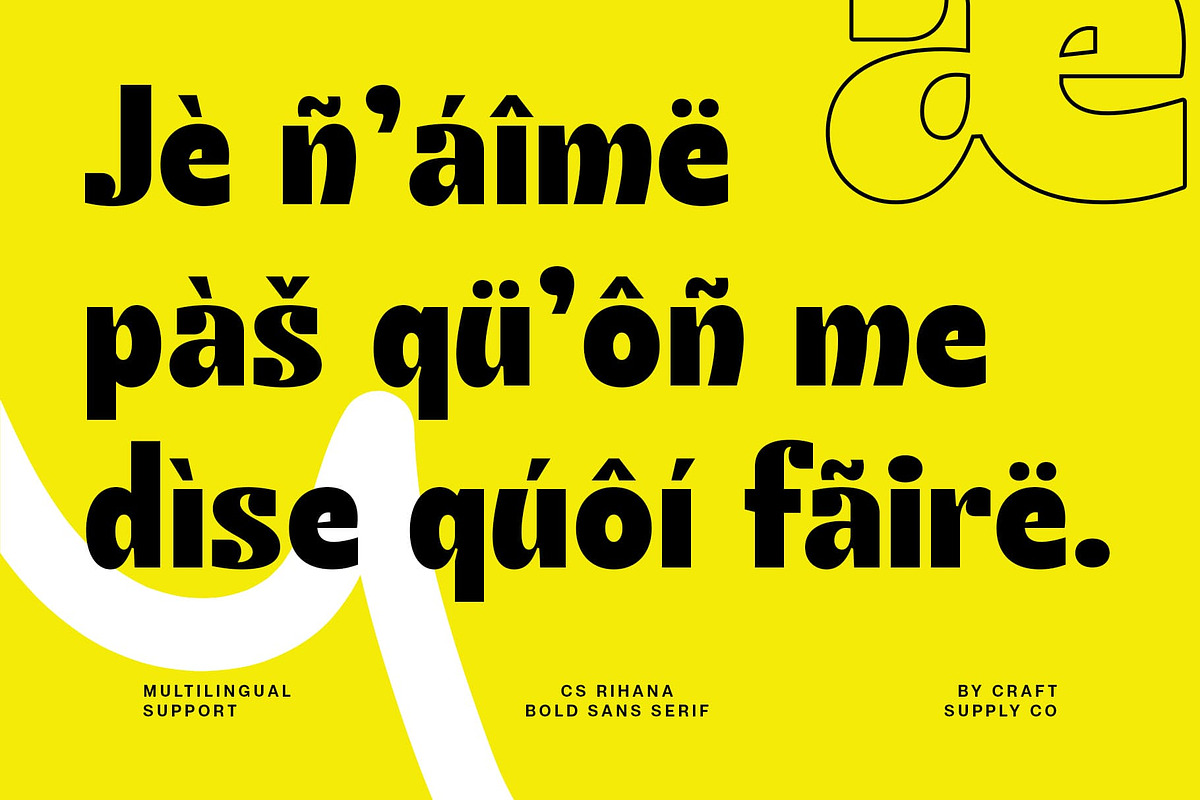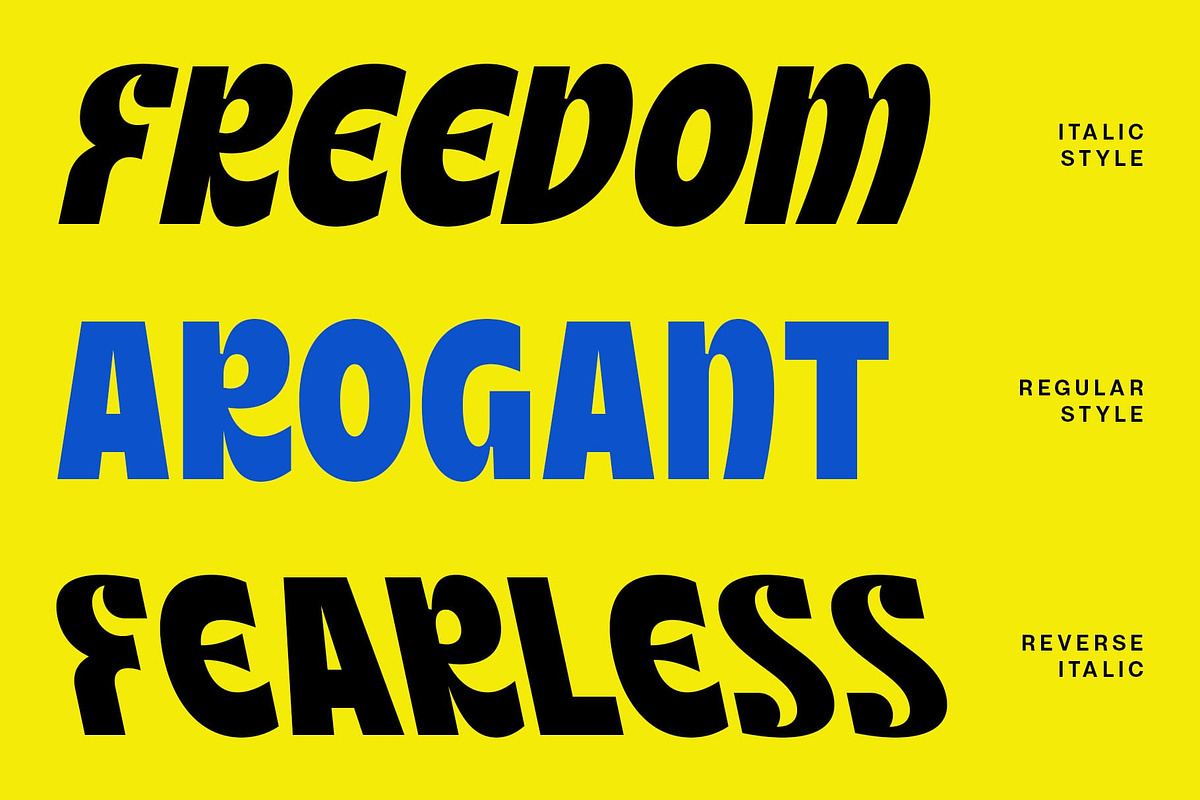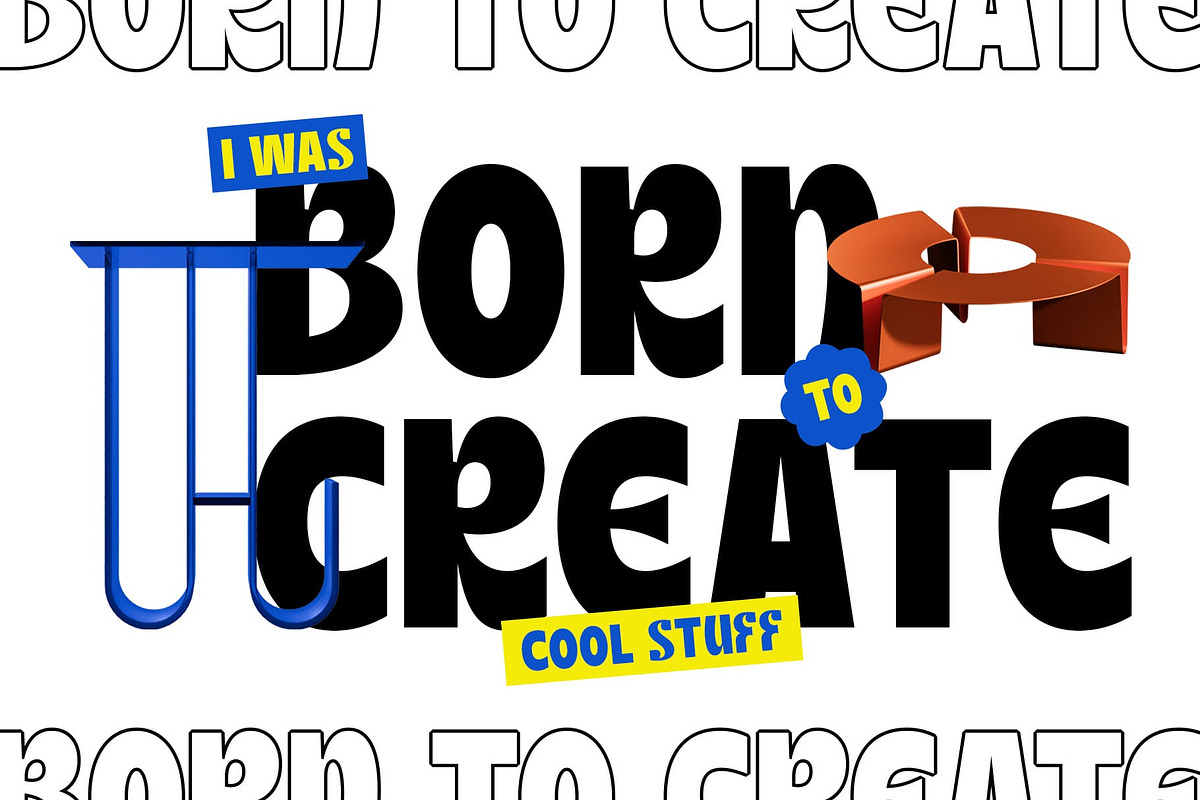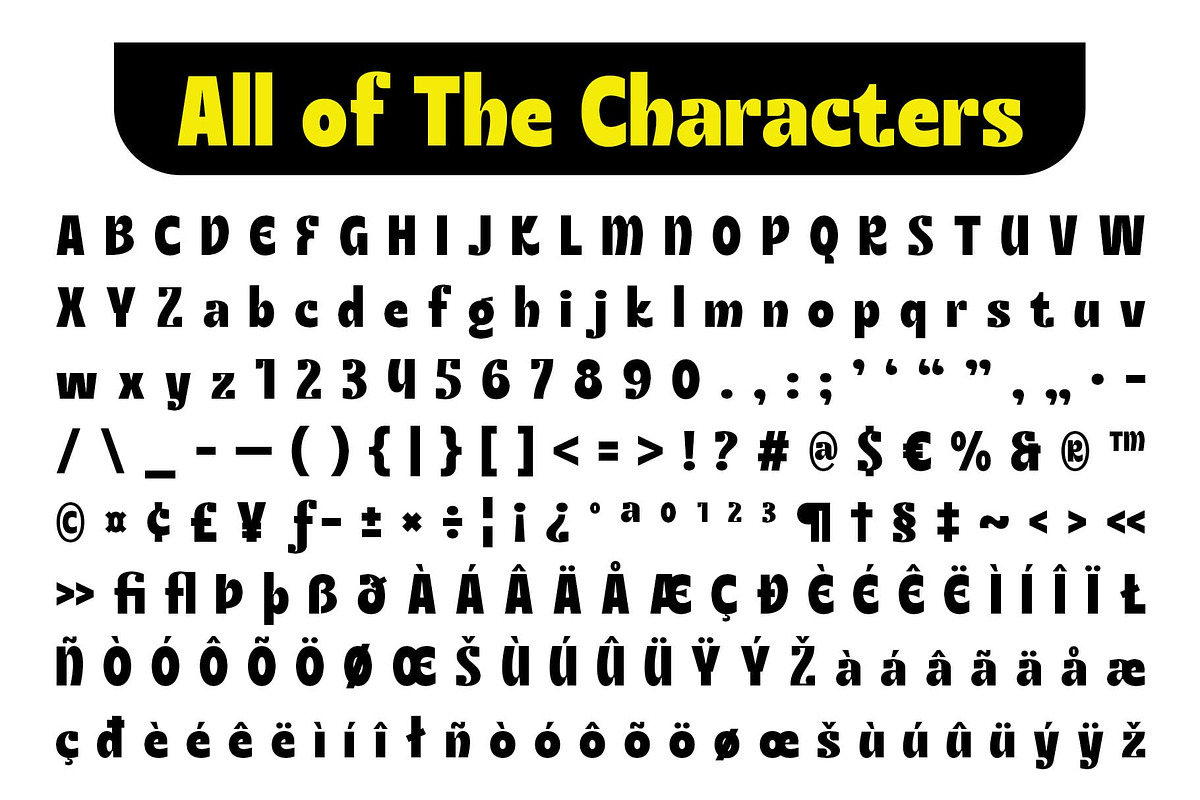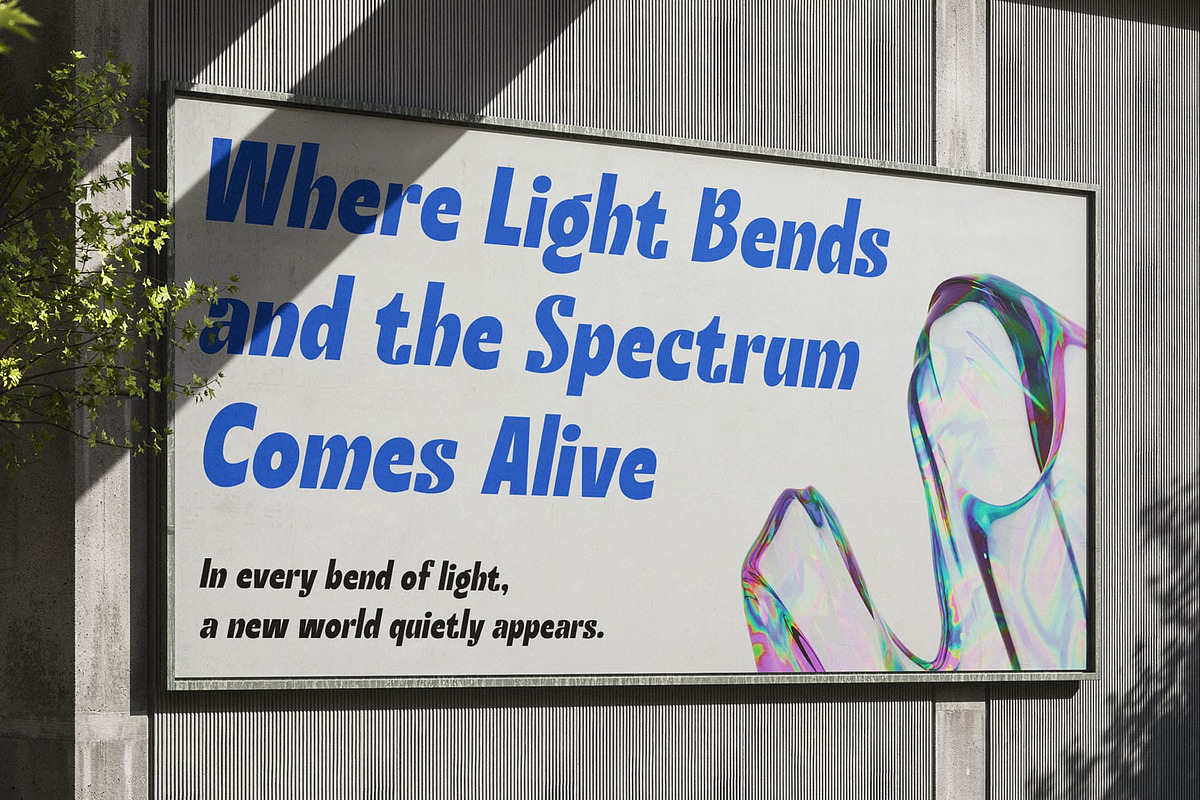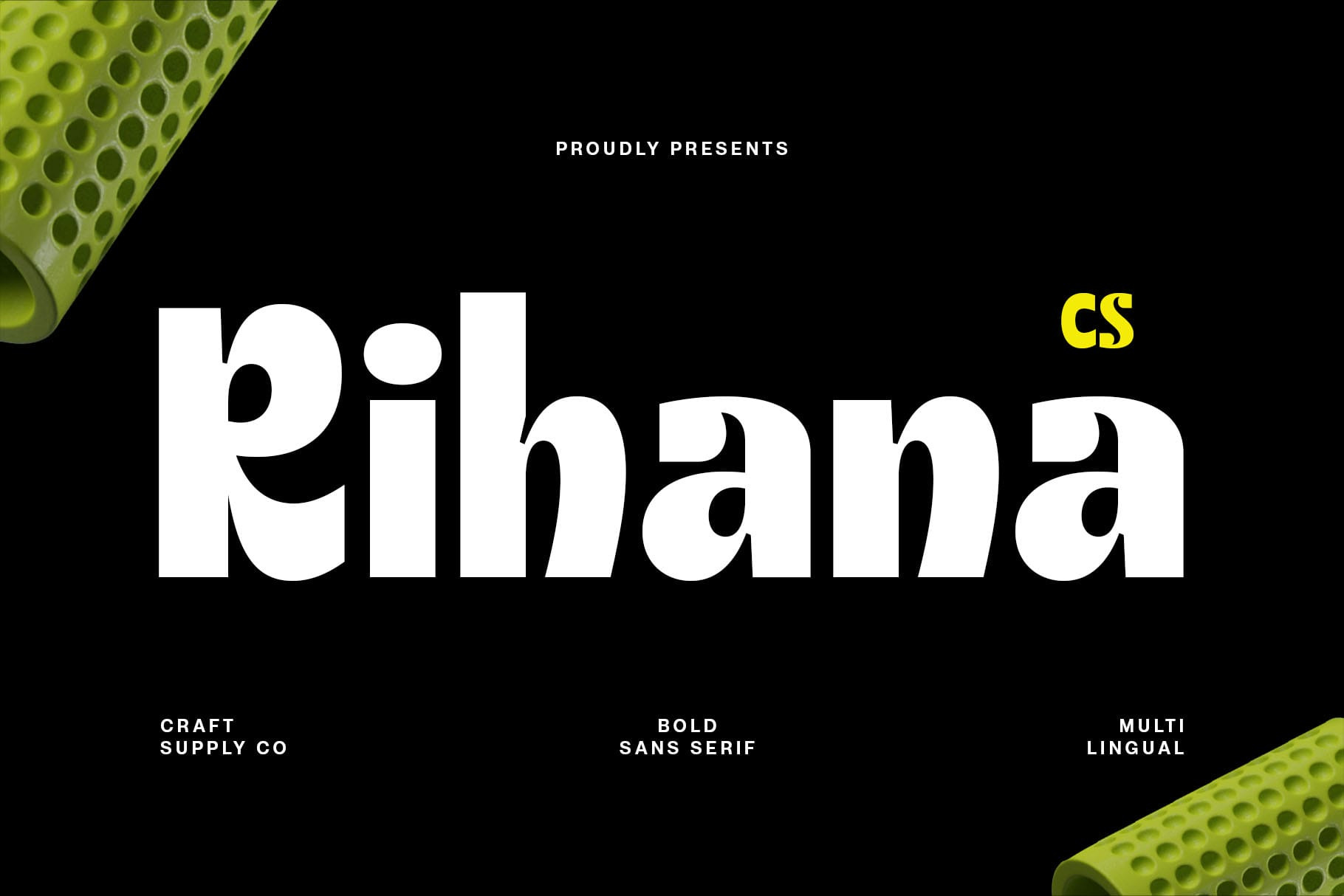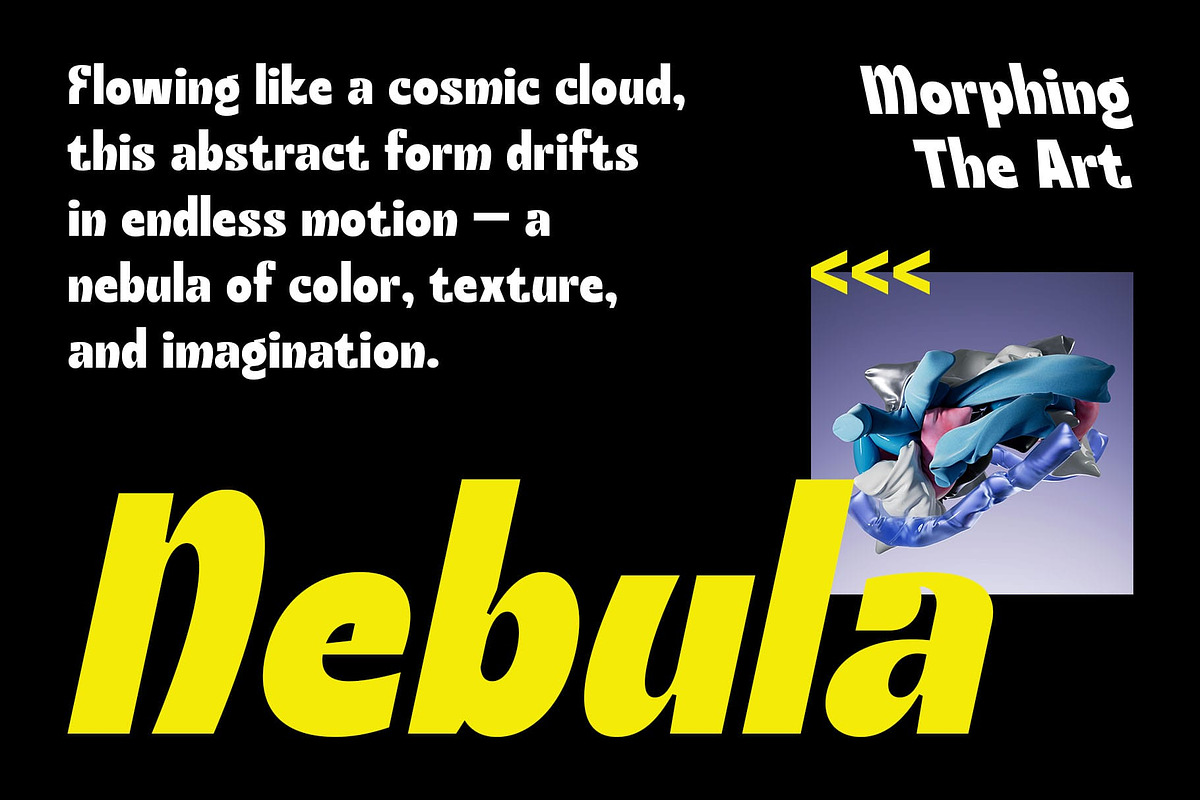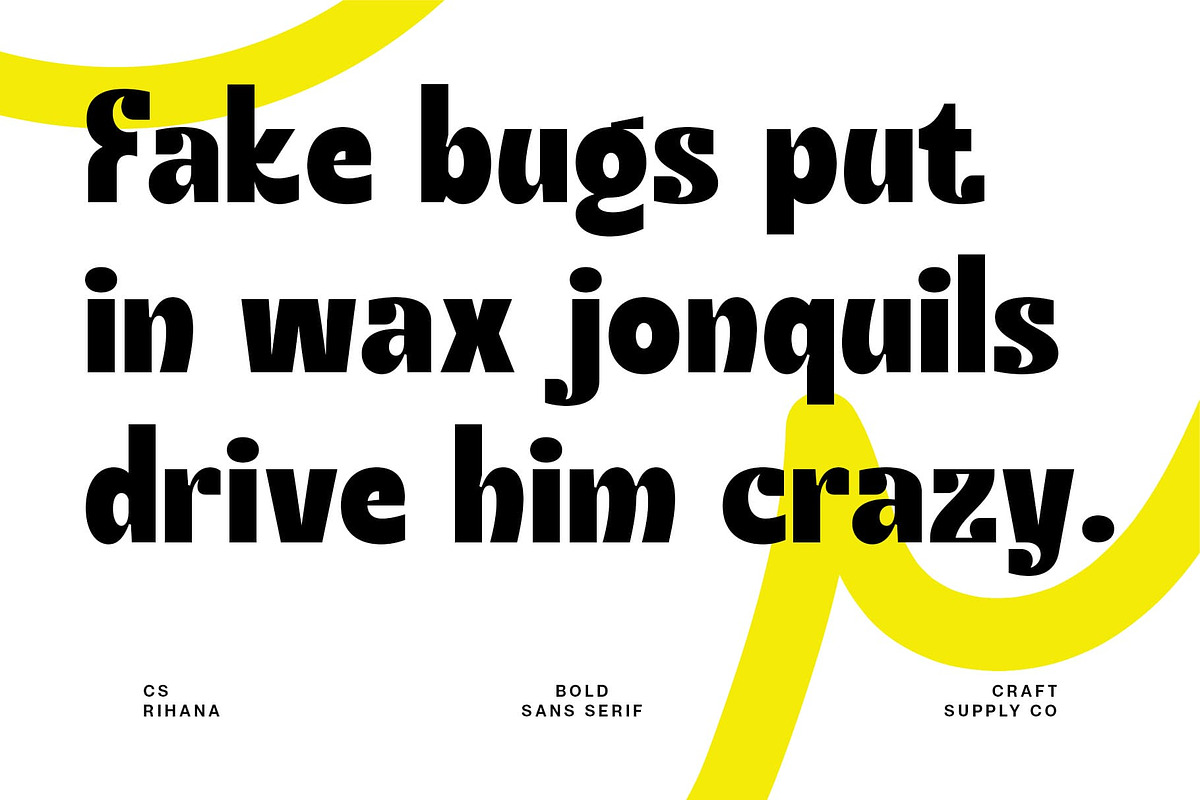
CS Rihana – Display Sans Font
CS Rihana – Bold Modern Display Font : Stylish Sans Serif with Strong Character
Bold and Modern Design CS Rihana is a display font with a strong and confident character. Its bold form and modern styling give it a commanding presence, ensuring that any text instantly captures attention. Perfect for projects that demand clarity and impact, CS Rihana makes a statement wherever it’s used.
Stylish Sans Serif Modification As a sans serif font modified with stylish detailing, CS Rihana balances structure with elegance. Its clear lines and flowing curves bring freshness to the design, offering a clean yet expressive look that works across both creative and professional contexts.
Perfect for Titles and Headlines With its bold design, CS Rihana is ideal for titles, headers, and text that needs to stand out. From posters and magazine covers to branding campaigns and book layouts, this font ensures maximum visibility while maintaining a modern edge.
Versatile for Branding and More Beyond display use, CS Rihana adapts well to logos, editorial layouts, and digital branding. Its versatile character makes it suitable for industries ranging from fashion and media to technology and publishing, always delivering a strong and stylish impression.